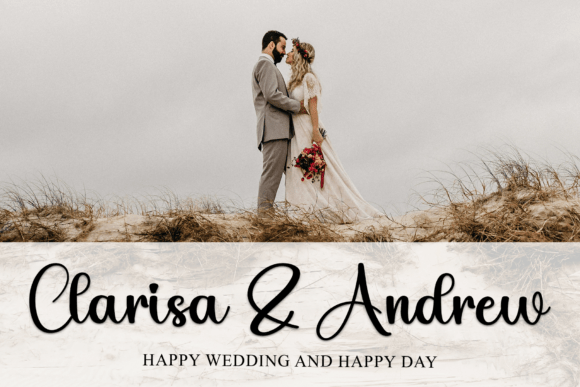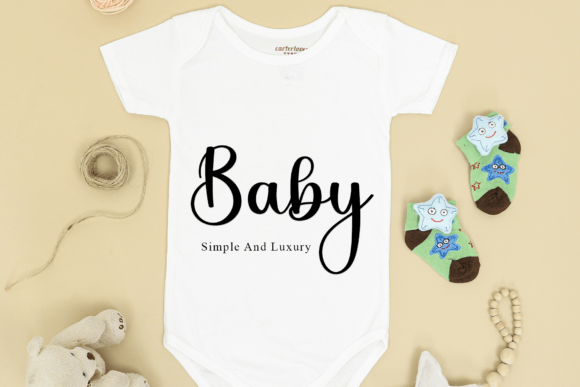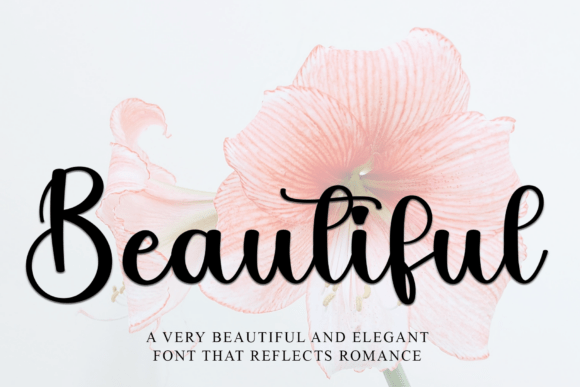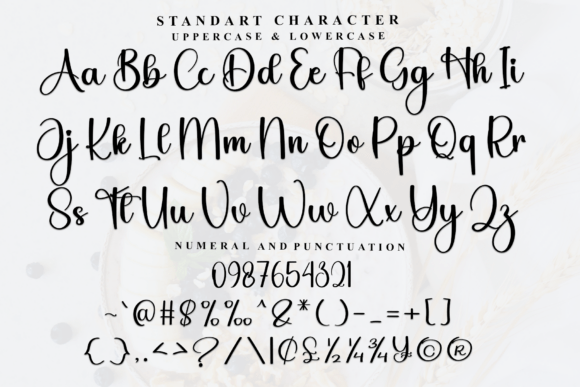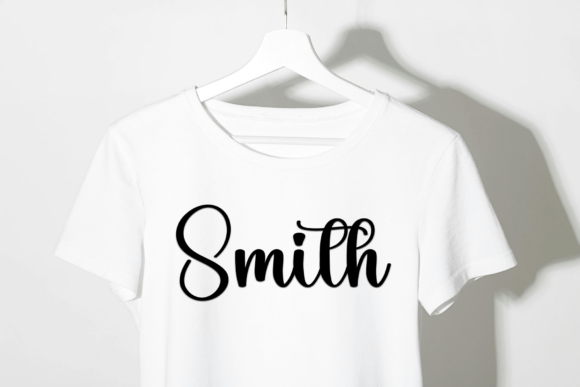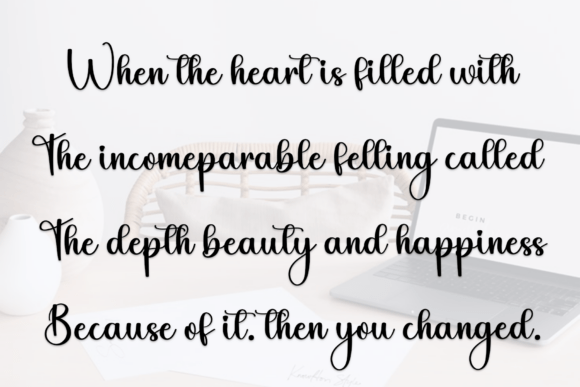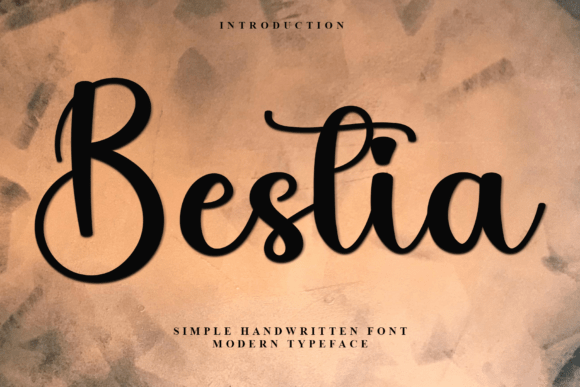
Discover the Charm of Bestia Font: A Casual and Creative Companion for Designers
In the world of typography, fonts play a crucial role in conveying the tone and personality of a design. For those seeking a font that exudes warmth, friendliness, and a touch of playfulness, Bestia Font is an excellent choice. This casual and creative font is perfect for personal projects, invitations, social media graphics, and any design that requires a relaxed and approachable feel.
The Unique Characteristics of Bestia Font
Bestia Font boasts round, playful strokes that immediately capture the attention of viewers. Its charming, hand-drawn aesthetic adds a fun and unique touch to any design, making it an ideal choice for designers and crafters looking to infuse their work with personality. The font’s relaxed and approachable feel makes it perfect for a wide range of applications, from personal projects to commercial designs.
Technical Features of Bestia Font
Advantages of Using Bestia Font
- Warm and Friendly Tone: Bestia Font’s playful strokes and charming aesthetic create a warm and friendly tone that resonates with viewers.
- Versatility: Suitable for a wide range of design applications, including personal projects, invitations, social media graphics, and more.
- Unique and Fun: Adds a touch of personality and whimsy to any design.
Use Cases for Bestia Font
Bestia Font’s versatility makes it suitable for various design applications. Here are a few use cases:
- Personal Projects: Use Bestia Font to add a personal touch to your DIY projects, crafts, and hobbies.
- Invitations and Cards: Create warm and inviting invitations, greeting cards, and thank-you notes with Bestia Font.
- Social Media Graphics: Elevate your social media presence with eye-catching graphics featuring Bestia Font.
- Branding and Packaging: Use Bestia Font to create a friendly and approachable brand identity.
Tips for Getting the Most Out of Bestia Font
To maximize the potential of Bestia Font, consider the following tips:
- Experiment with Colors: Pair Bestia Font with a range of colors to create visually appealing combinations.
- Play with Size and Style: Adjust the font size and style to create visual hierarchy and add emphasis.
- Combine with Other Fonts: Mix Bestia Font with other fonts to create a unique and engaging typography.
Bestia Font is a charming and creative font that offers a unique blend of warmth, friendliness, and playfulness. Its versatility, technical features, and ease of use make it an excellent choice for designers and crafters. Whether you’re working on personal projects, invitations, social media graphics, or commercial designs, Bestia Font is sure to add a touch of personality and whimsy to your work.